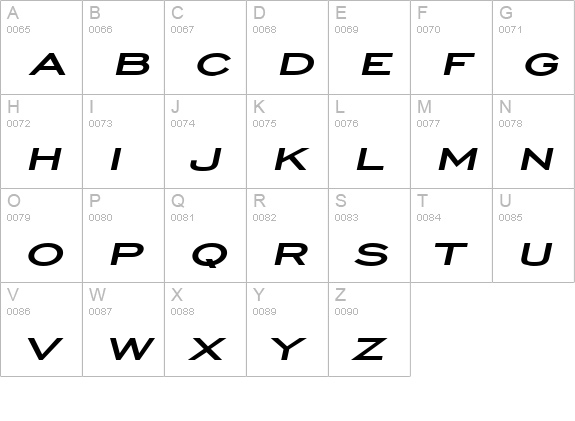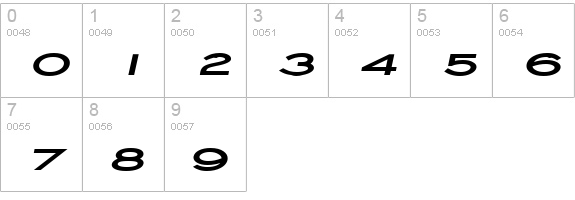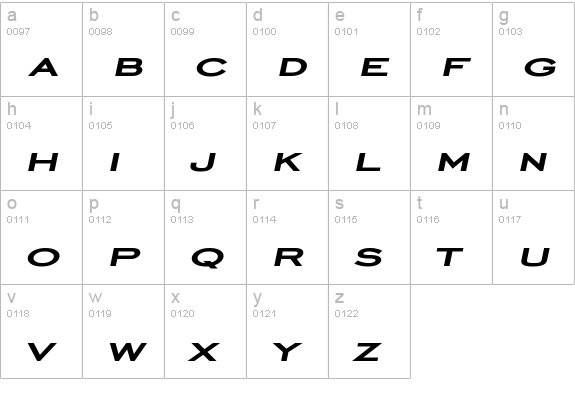
Chisel Extended Bold Italic is a strong, high-contrast, extended-width, italic variant in the Chisel typeface family \xE2\x80\x94 well suited to headlines, attention-grabbing titles, and strong calls-to-action.
Chisel Extended Bold Italic font is a striking and bold typeface that exudes strength and elegance. Its sharp angles and distinctive curves make it perfect for creating eye-catching designs that demand attention. The bold italic style adds a touch of sophistication and flair to any project. This font is ideal for headlines, posters, logos, and other design projects where you want to make a statement. Whether you're looking to add a touch of modernity to your branding or want to create a powerful visual impact, Chisel Extended Bold Italic font is sure to deliver. And the best part? This font is available for free download at FontsMarket.com, allowing you to access this versatile and stylish typeface without any cost. Don't miss out on the opportunity to elevate your designs with Chisel Extended Bold Italic font today!